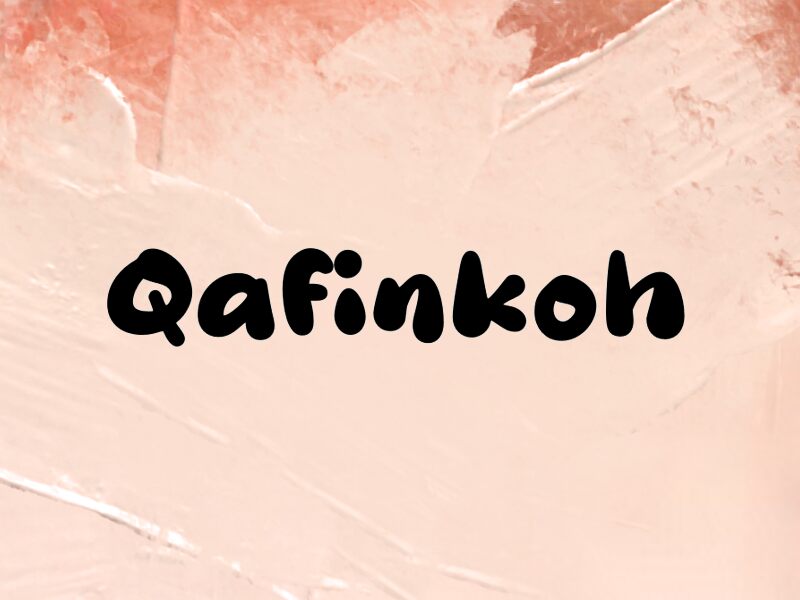
Qafinkoh font by wep is a cartoon font with a vibrant personality and groovy style. The free font exudes an approachable and informal sense that makes a perfect addition to your design’s typography. Curvy and smooth, the characters of this typeface seem to be flowing and dancing, making them ideal for all your casual projects.
Commercial posters, casual advertising, and comics will also look wonderful when set in Qafinkoh. Its varied, contemporary build makes it ideal for professional projects that include animated movies, cartoons, pamphlets, advertisements, invites, books, and websites.
Qafinkoh is a unique and stylish free font that perfectly blends modern aesthetics with a classic touch. This font is versatile, making it an excellent choice for various design projects, including branding, posters, and digital media. Enjoy the ease of customization and the appealing visual impact that Qafinkoh brings to your work.
The seamless curves and distinctive letterforms of Qafinkoh add a sophisticated flair to any text, ensuring that your designs stand out. The font is available for free download, allowing you to explore its potential without any limitations.